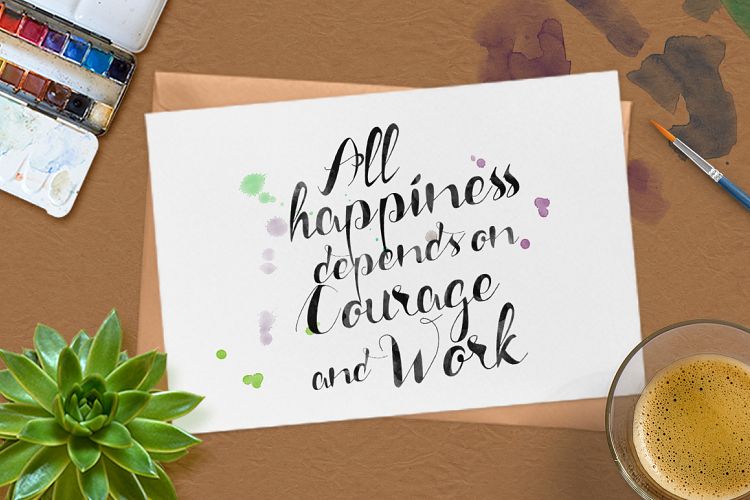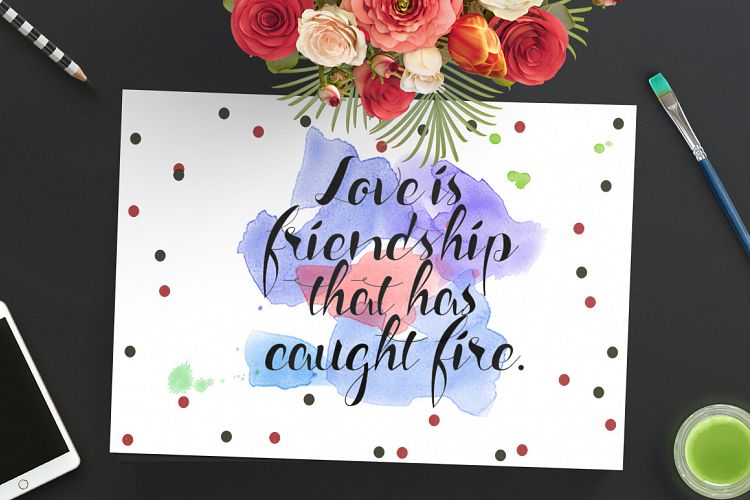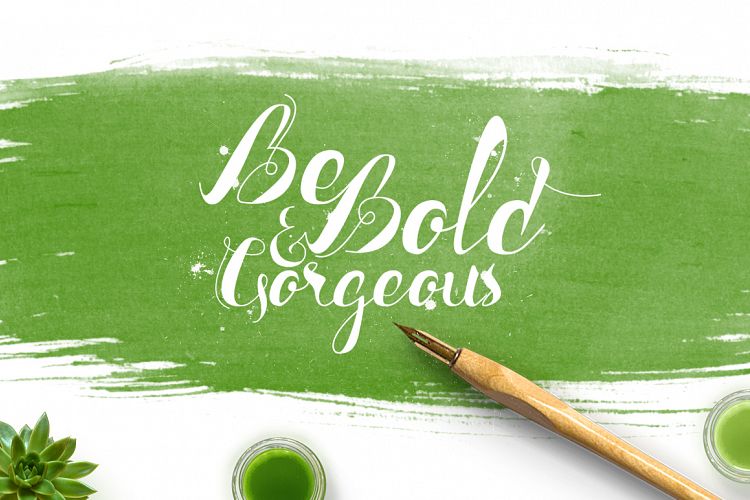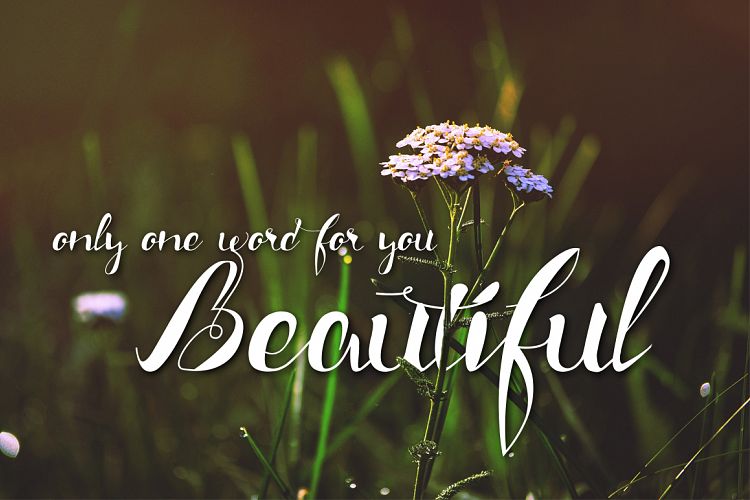
Nafeeza Script
Nafeeza Script Font
Introducing a modern script called “Nafeeza Typeface” this font can be used such as letterhead, signature, logos, wedding invitation, poster, headings, signage, lable, news, posters, t-shirt, badges etc. Nafeeza Script features 209 alternate characters on uppercase and especially for initial logo because i made initial and terminal on uppercase type. including alternates, ligatures, numeral.